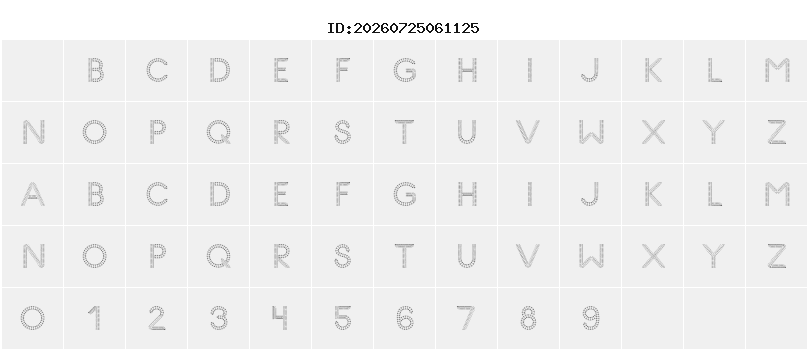
• Font Name: Glyph Stitch v4
• Designer: Miranda Lee
• Manufacturer: MirandaMarie
About Glyph Stitch v4.ttf
Glyph Stitch v4.ttf is a modern, elegant sans-serif font designed for ultimate readability and visual harmony. Perfect for branding, headlines, web design, and print materials.